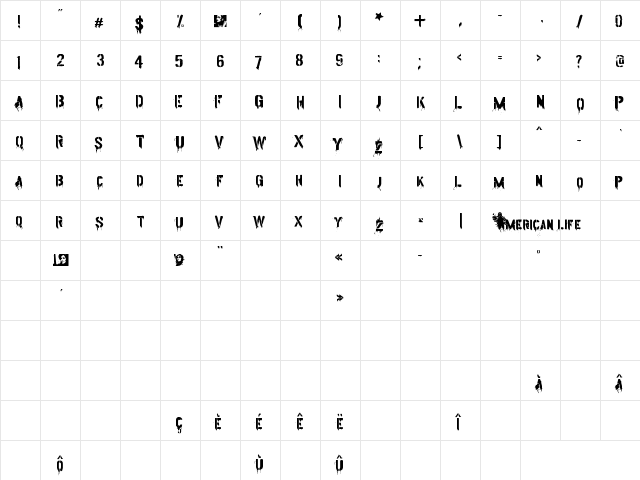
American Life Regular Font Preview
American Life Regular
American Life Regular Font Details
Design Context for American Life Typeface
American Life is a composed and adaptable typeface that performs quietly and consistently across a wide range of design contexts.